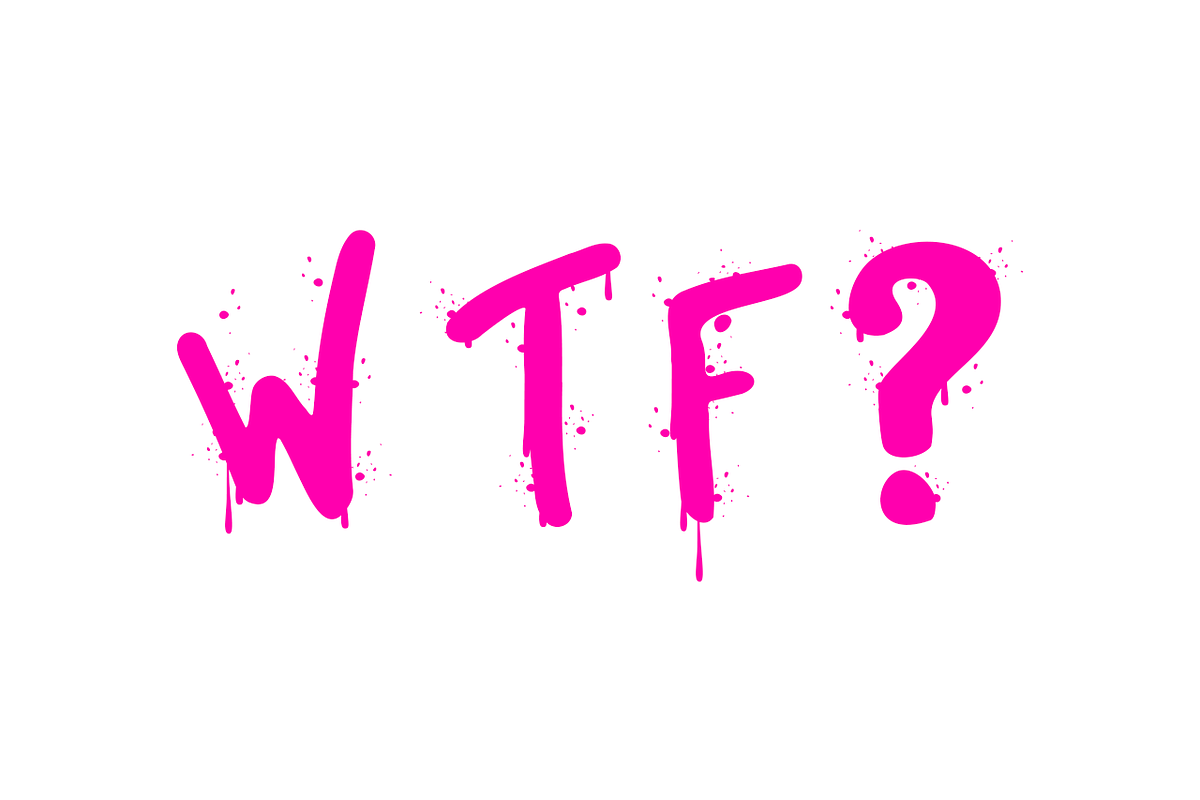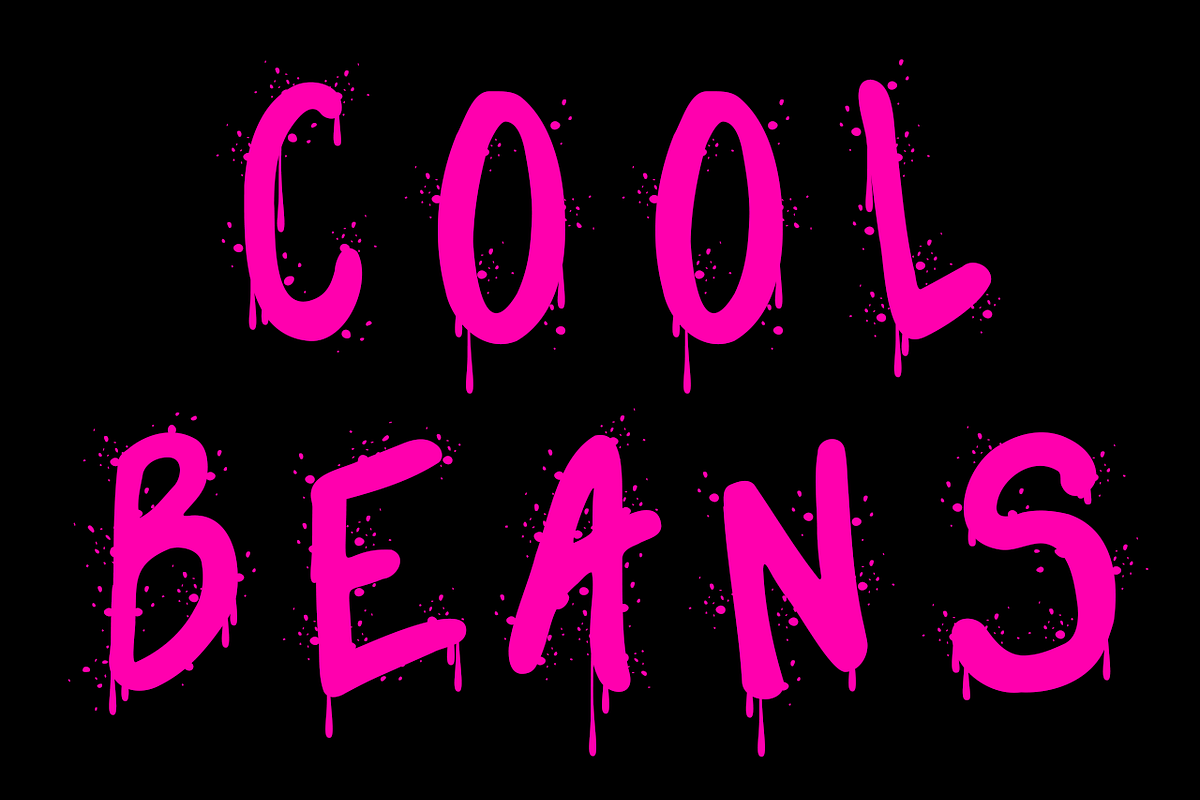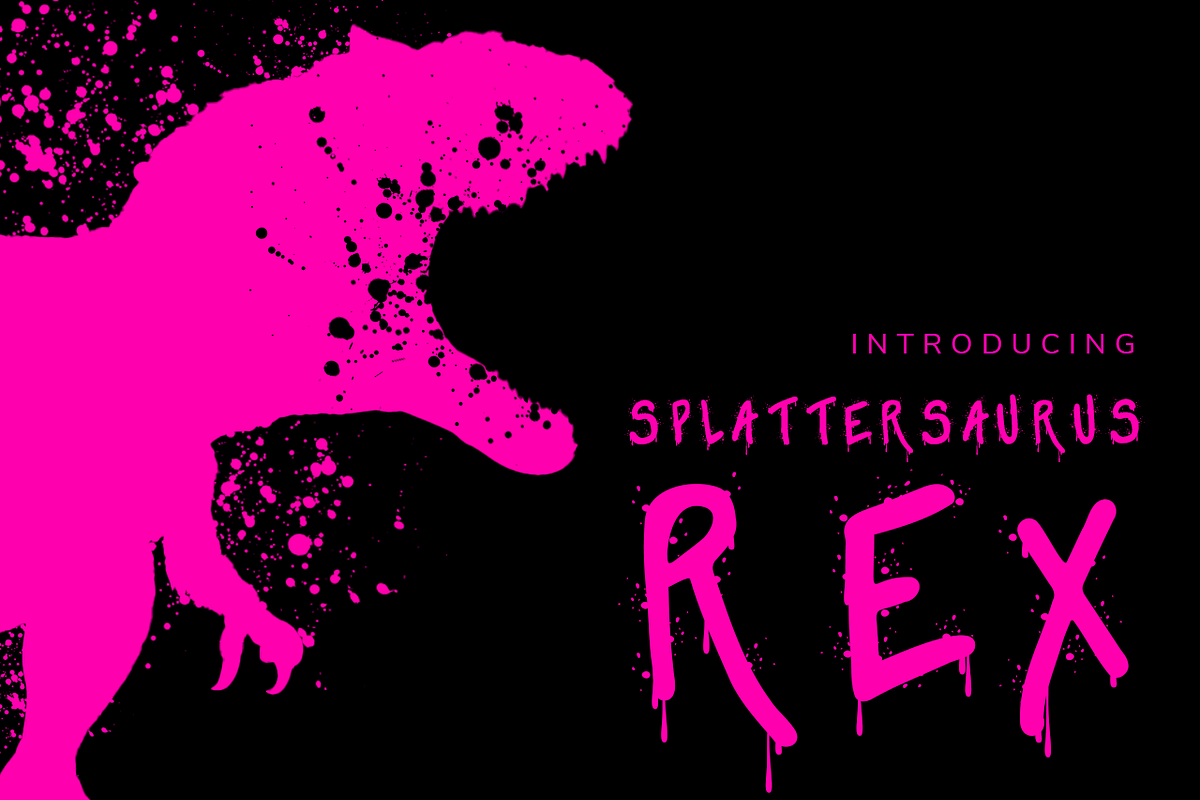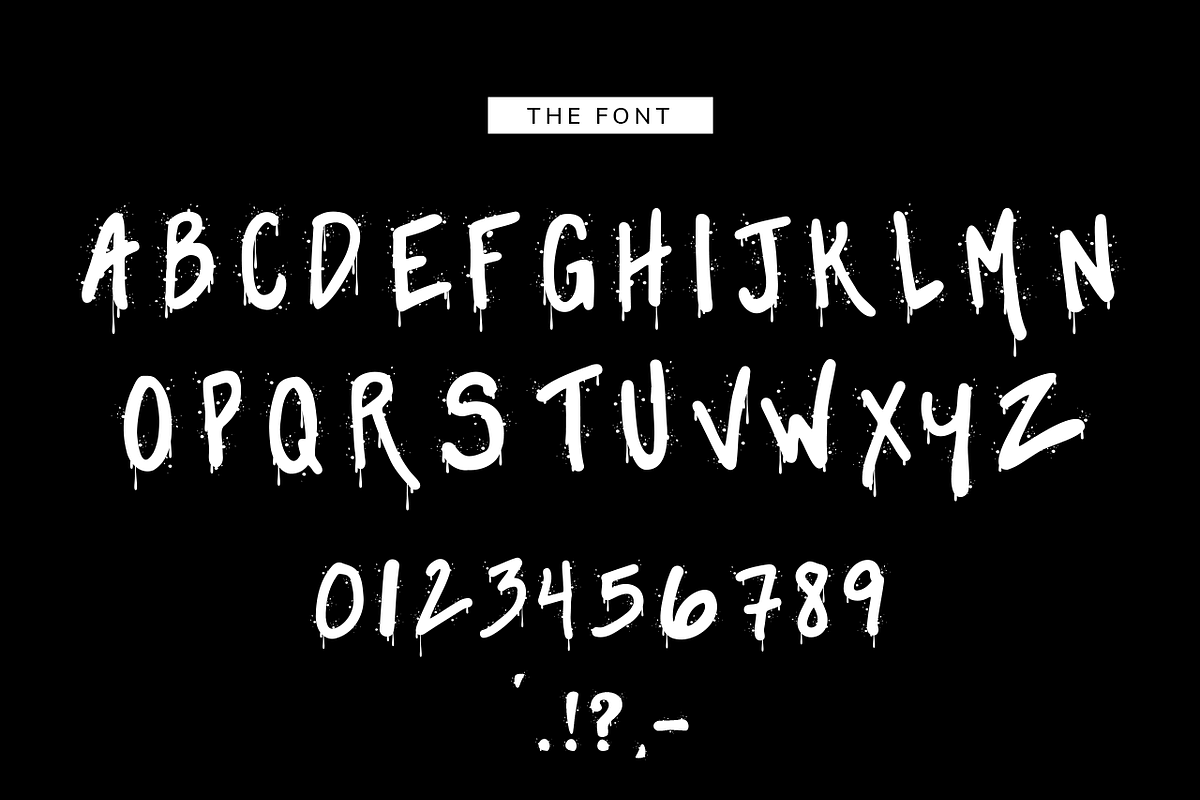
Splattersaurus Rex
Splattersaurus Rex Spray Paint Font
Splattersaurus Rex mixes a little graffiti into your every day life. Subtle splats and drippy runs gives your project the flare it's been looking for.
Great for logos, type, headlines, clothing, covers, & posters.
Uppercase Lowercase (also in uppercase) Number, Punctuation And Symbols